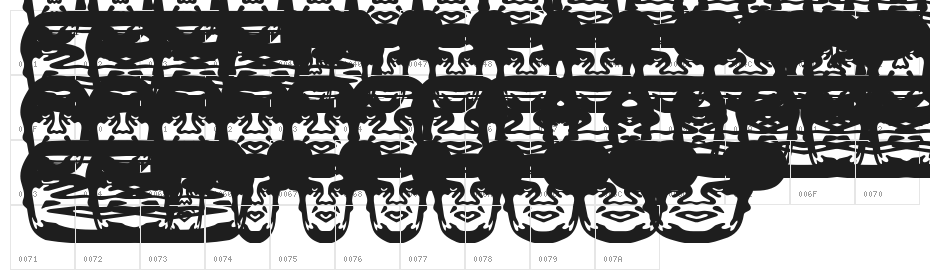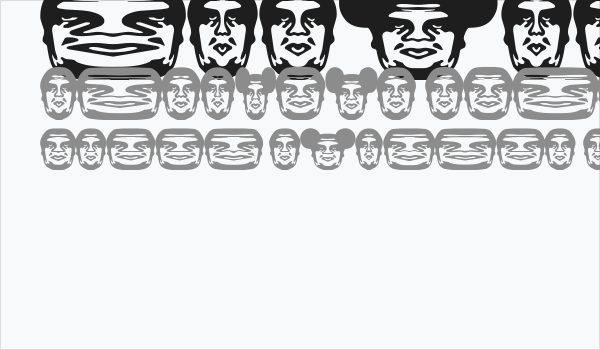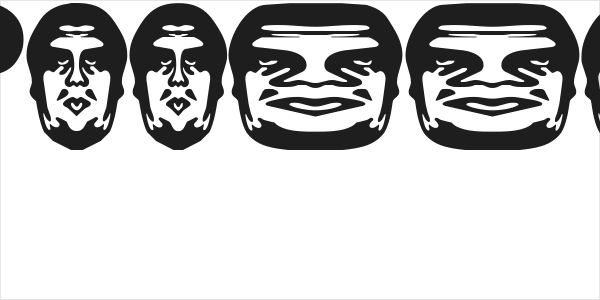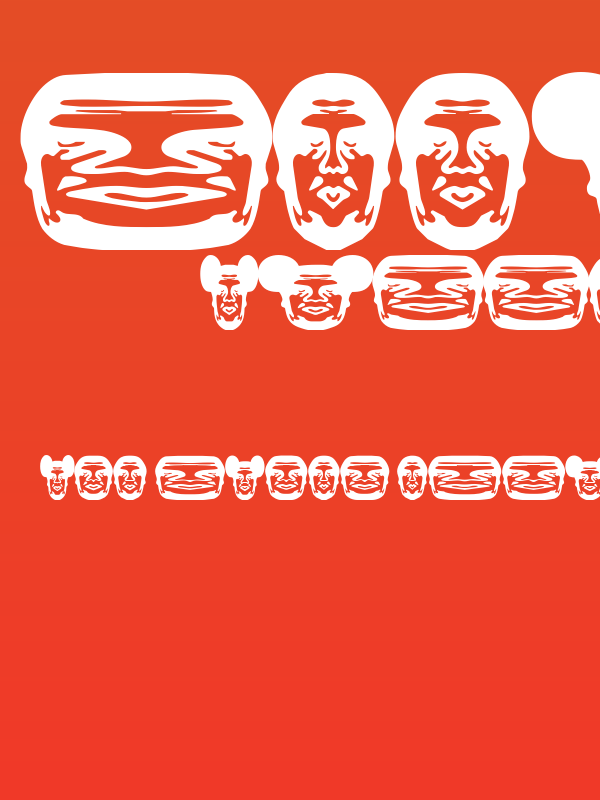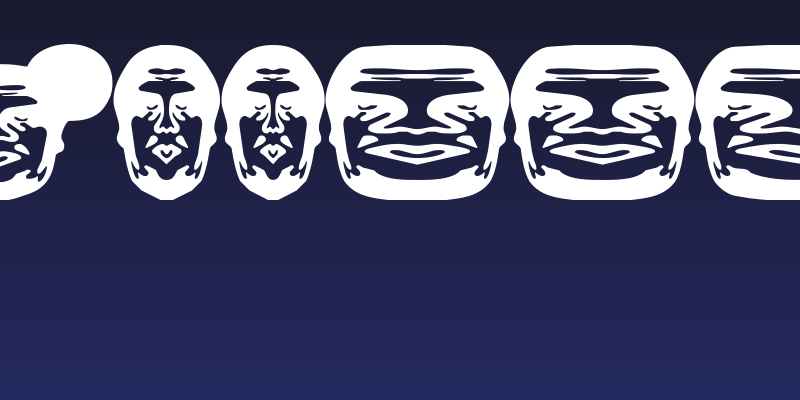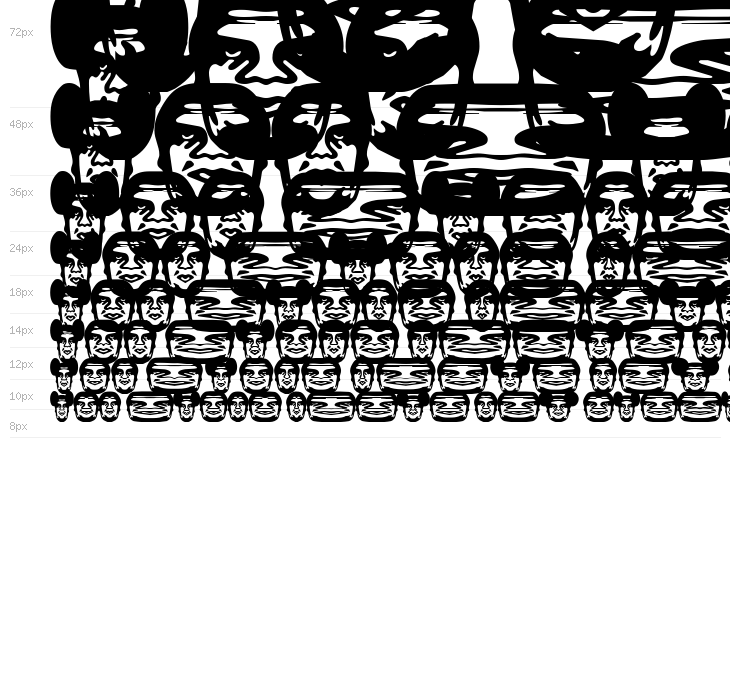
ObeyBalloon2 Font
ObeyBalloon2 Description
This is not a valid font. The image consists of repeated graphic elements resembling faces or masks, arranged in rows. These elements do not represent typical alphanumeric characters or symbols used in standard typography.